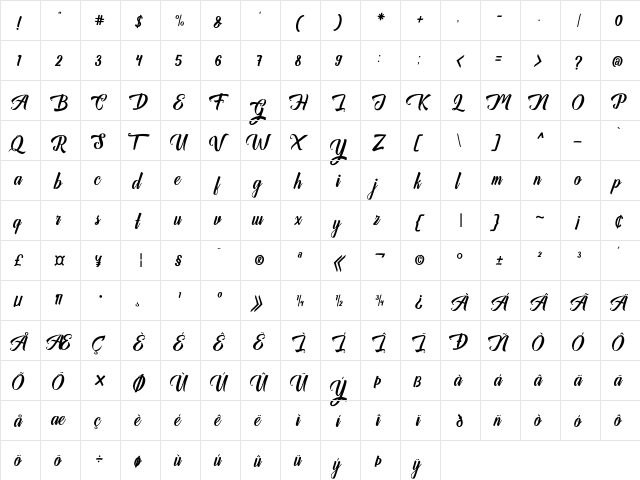
Auntekhno Script Free Regular
Design Context for Auntekhno Script Free Typeface
Auntekhno Script Free brings a calligraphic fluidity to the page — its connecting strokes and expressive curves give it an unmistakably human quality.
Font Pairing: Combine Auntekhno Script Free with a simple geometric sans for maximum contrast — the tension between flowing curves and clean structure is a classic typographic pairing.
Pro Tip: Pair Auntekhno Script Free with a clean sans-serif for supporting text. The contrast between fluid script and geometric structure creates an elegant typographic hierarchy.